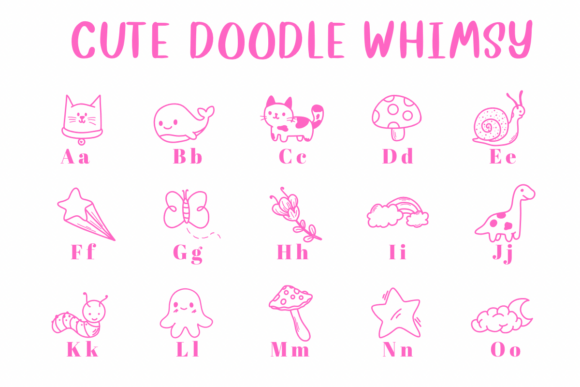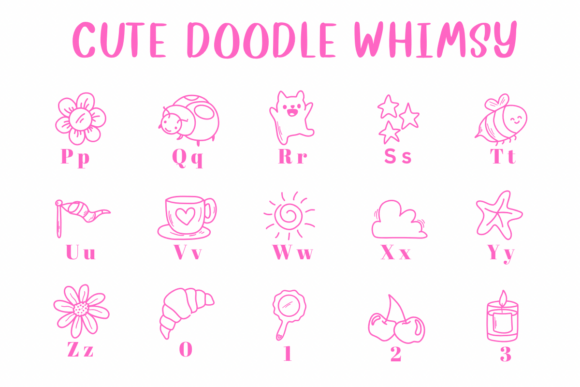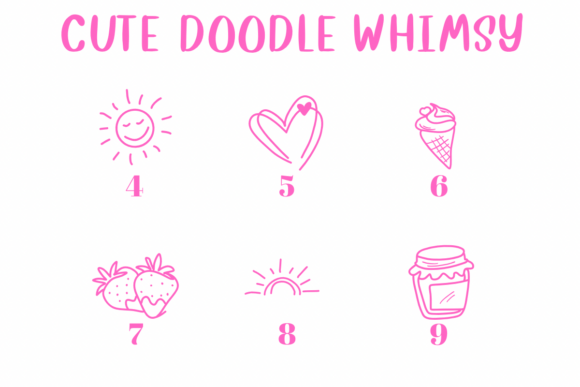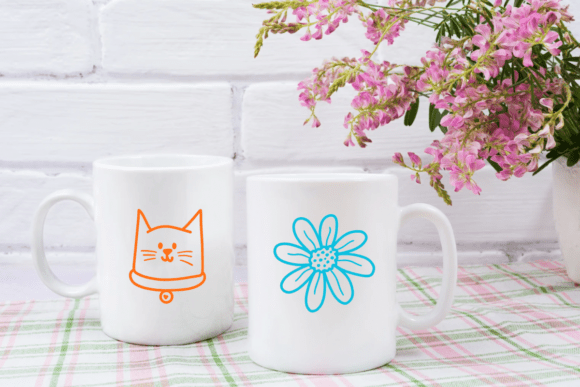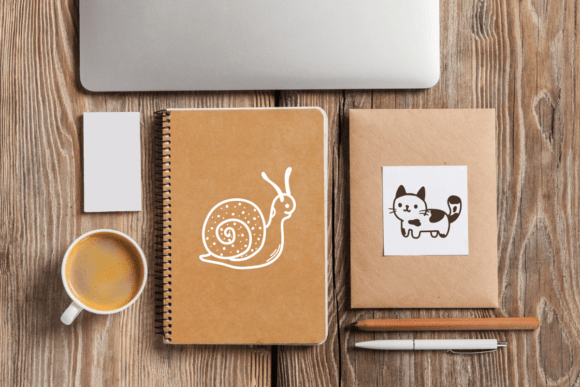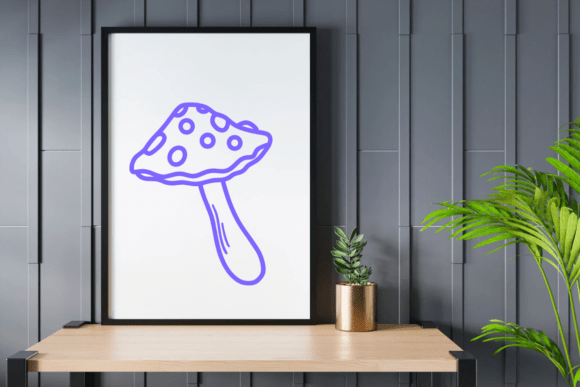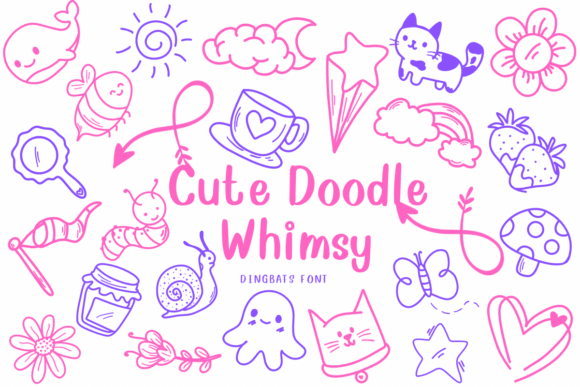
Cute Doodle Whimsy Font: Add a Touch of Whimsy to Your Creative Projects
Are you looking for a unique and playful font to add a touch of personality to your creative projects? Look no further than the Cute Doodle Whimsy font! This charming dingbats font features an abstract theme that’s perfect for designers, crafters, and DIY enthusiasts who want to add a dash of whimsy to their work.
What is Cute Doodle Whimsy Font?
Cute Doodle Whimsy is a dingbats font that features a collection of abstract shapes, doodles, and whimsical designs. The font is made up of a wide range of characters, including letters, numbers, and symbols, each with its own unique and playful design. The font is perfect for adding a touch of personality to your creative projects, from wedding invitations and DIY crafts to logos and decorations.
Features of Cute Doodle Whimsy Font
The Cute Doodle Whimsy font has several features that make it a great choice for designers and crafters. Some of the key features include:
- Abstract theme: The font features an abstract theme that’s perfect for adding a touch of whimsy to your creative projects.
- Wide range of characters: The font includes a wide range of characters, including letters, numbers, and symbols, each with its own unique design.
- Playful designs: The font features playful designs that are perfect for adding a touch of personality to your creative projects.
Uses for Cute Doodle Whimsy Font
The Cute Doodle Whimsy font is perfect for a wide range of creative projects, including:
- Wedding invitations: Add a touch of whimsy to your wedding invitations with this charming font.
- DIY crafts: Use the font to add a personal touch to your DIY crafts, such as scrapbooking, card making, and more.
- Decorations: Use the font to create custom decorations, such as garlands, banners, and signs.
- Logos: Use the font to create a unique and playful logo for your business or brand.
- Social media graphics: Use the font to create eye-catching social media graphics, such as Facebook posts, Instagram stories, and more.
Tips for Using Cute Doodle Whimsy Font
Here are a few tips for using the Cute Doodle Whimsy font:
- Experiment with different colors: The font looks great in a variety of colors, so don’t be afraid to experiment and find the perfect color for your project.
- Mix and match characters: The font features a wide range of characters, so try mixing and matching them to create a unique look.
- Use it with other fonts: The Cute Doodle Whimsy font pairs well with other fonts, so try using it with a bold font or a script font to create a unique look.
The Cute Doodle Whimsy font is a charming and playful font that’s perfect for designers, crafters, and DIY enthusiasts who want to add a touch of whimsy to their creative projects. With its abstract theme, wide range of characters, and playful designs, this font is sure to inspire your creativity and help you create unique and eye-catching projects. So why not give it a try and see what amazing creations you can come up with?